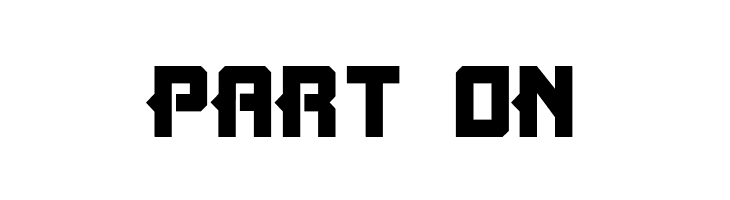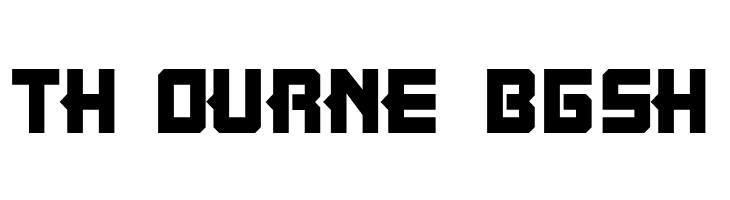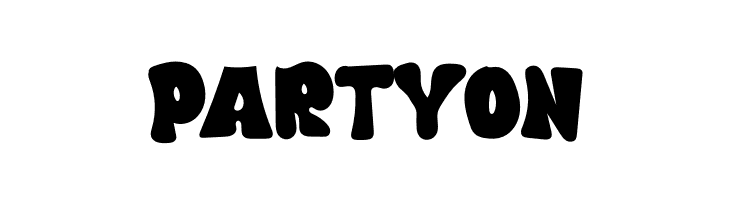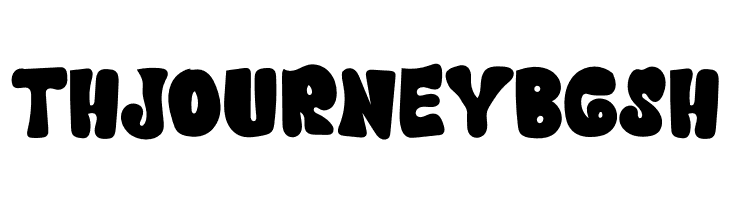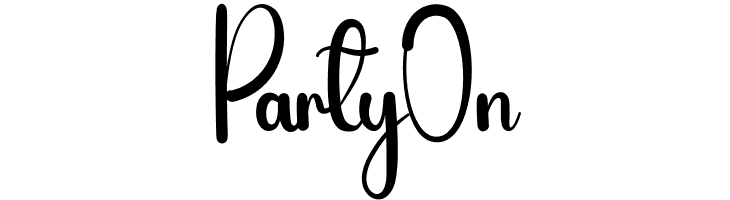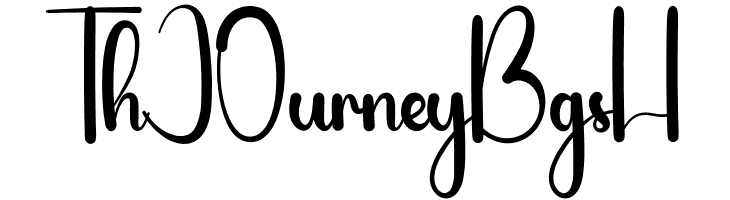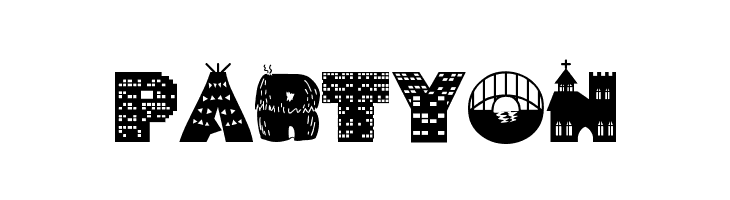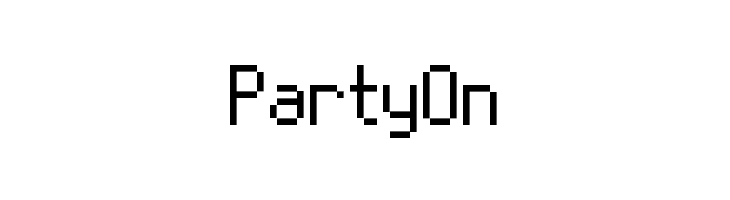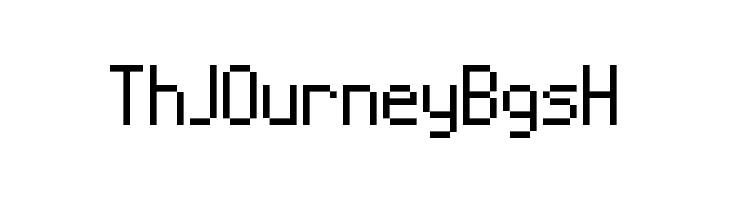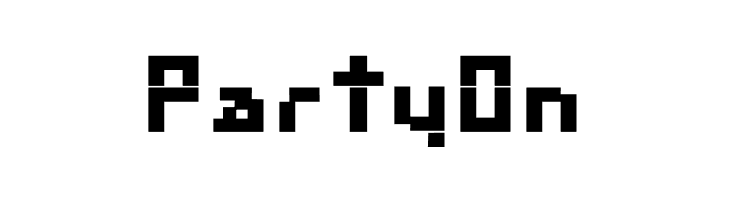
( Fonts by Andi Moz )
Tall, playful handwritten script with consistent stroke width.
( Fonts by Jester Font Studio )
A decorative font with characters designed as urban cityscapes.
( Fonts by Mr.Soon Design )
A bold, playful font with rounded, bubbly characters.
( Footnote Fonts )
A bold, pixelated font with a geometric, retro digital design.
A bold, angular font with sharp, pointed elements and a dramatic, modern gothic style.
A bold, geometric font with a futuristic and industrial design.
A graceful script font with fluid, cursive strokes and elegant curves.